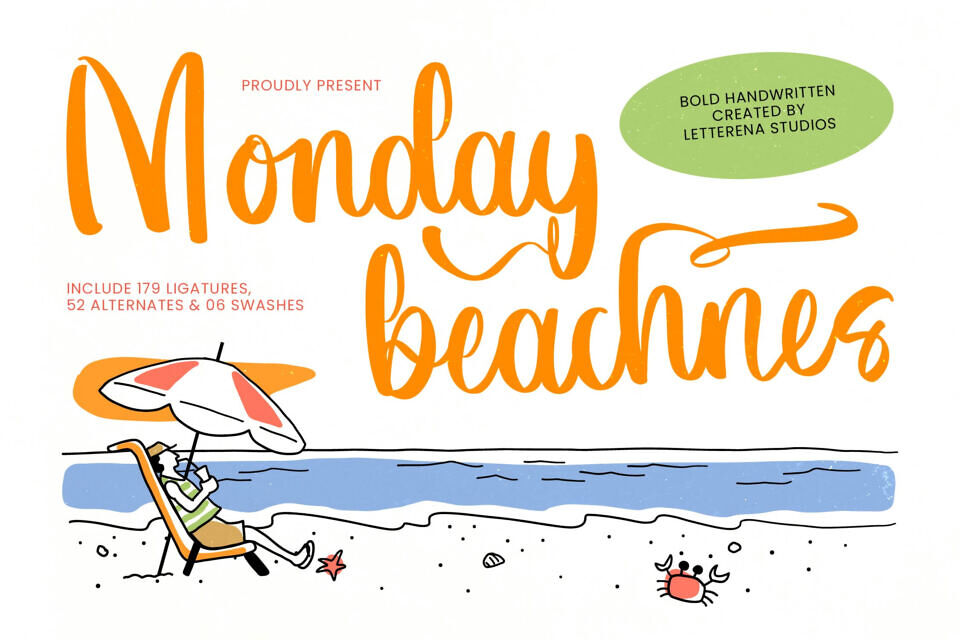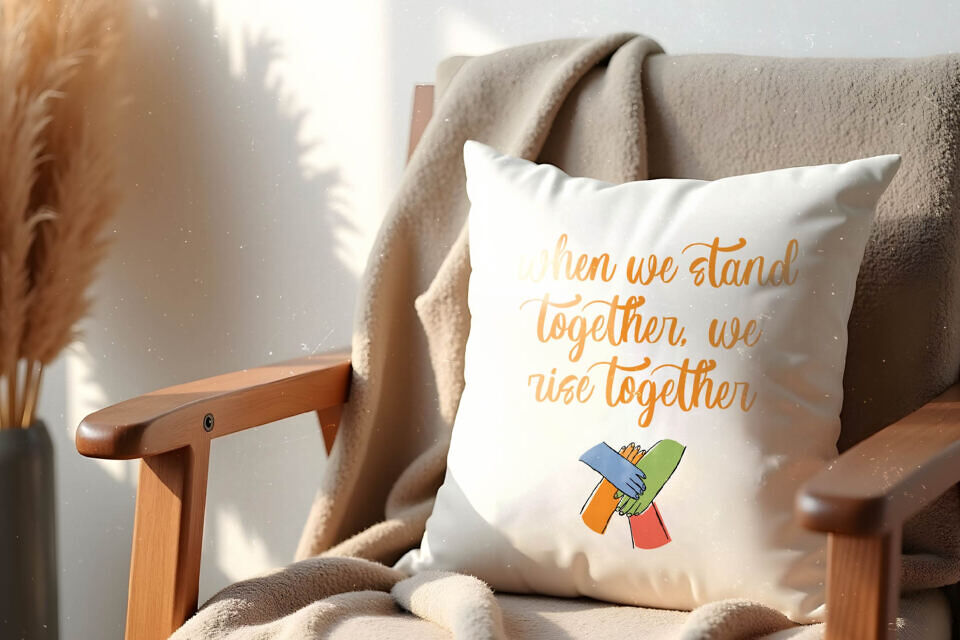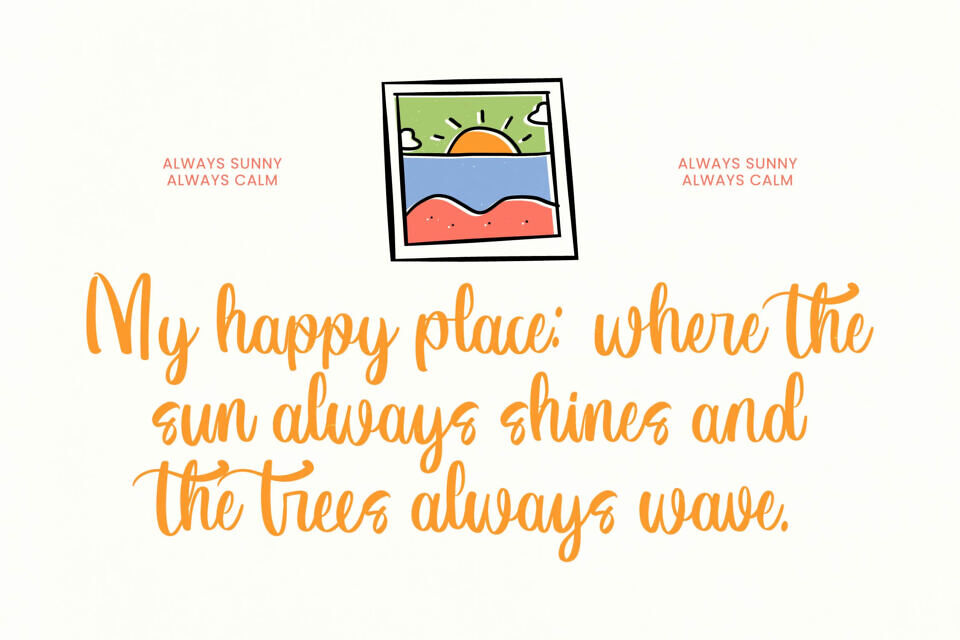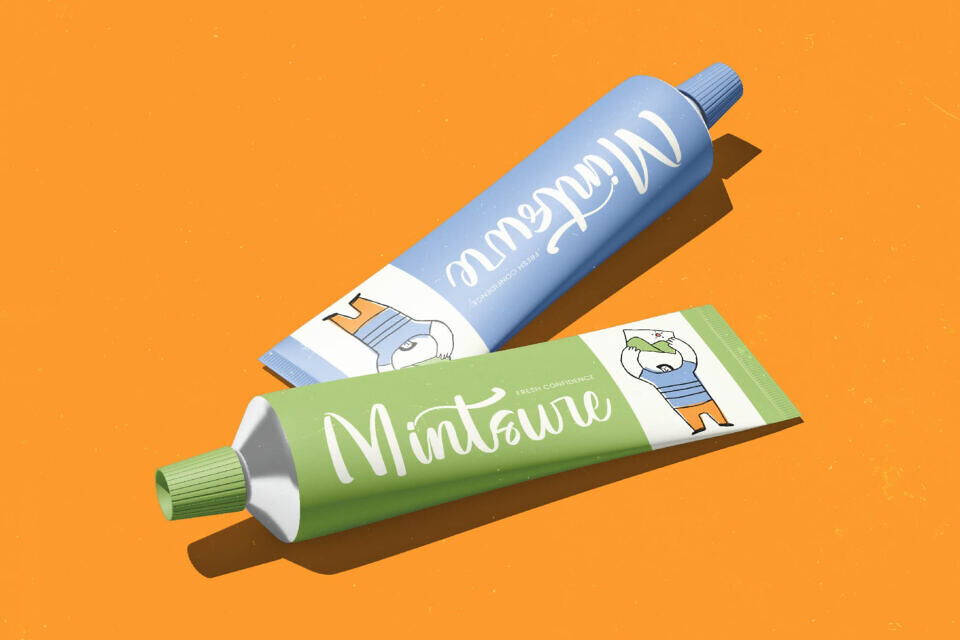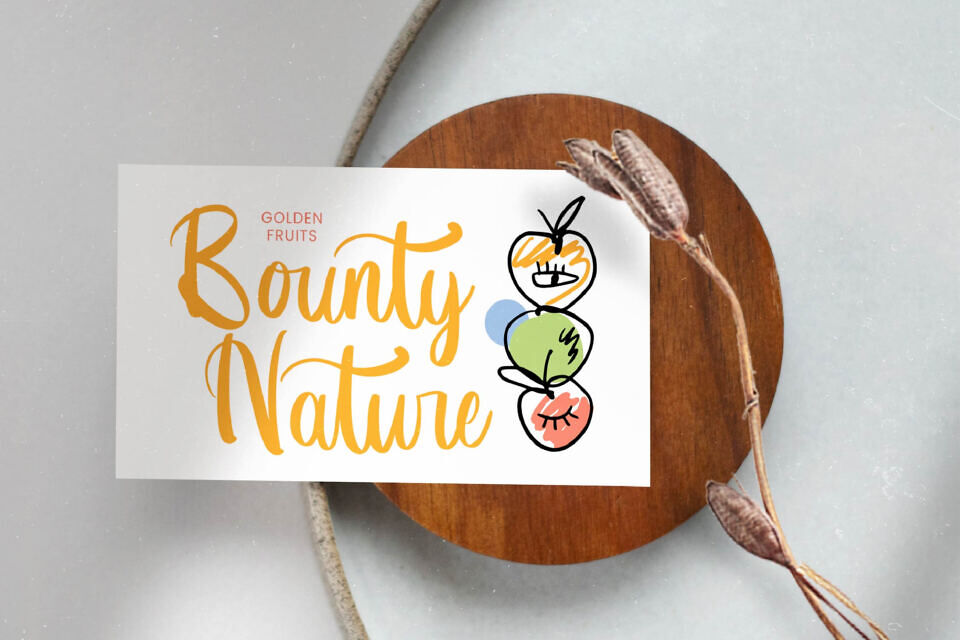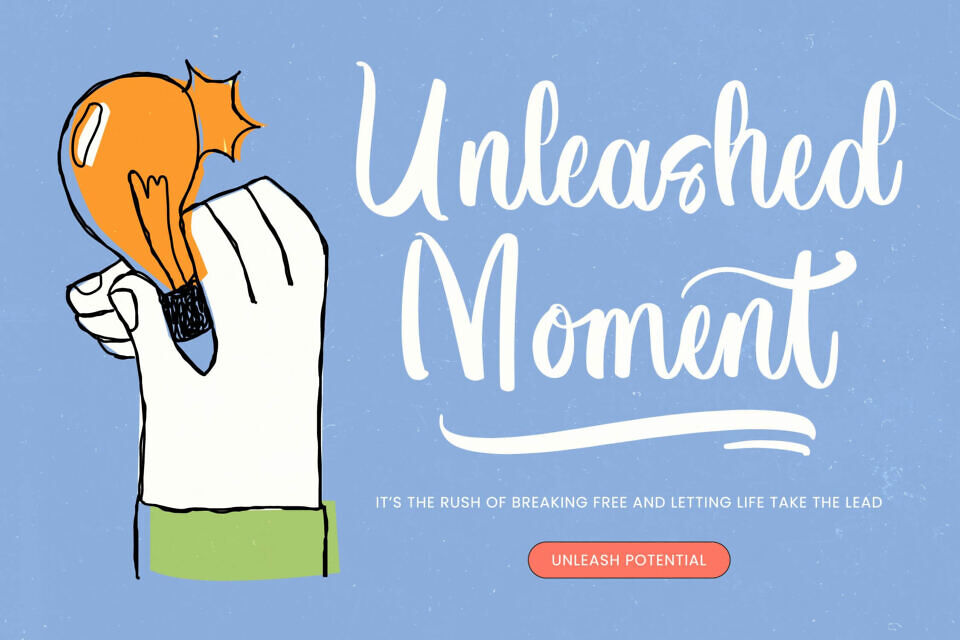
Monday Beachnes is a bold handwritten script inspired by carefree seaside moments, bringing a warm, playful, and breezy personality to your designs.
Its smooth strokes, natural movement, and sun-kissed charm make it perfect for beach-themed branding, lifestyle merchandise, summer event posters, social media graphics, greeting cards, travel blogs, and creative packaging.